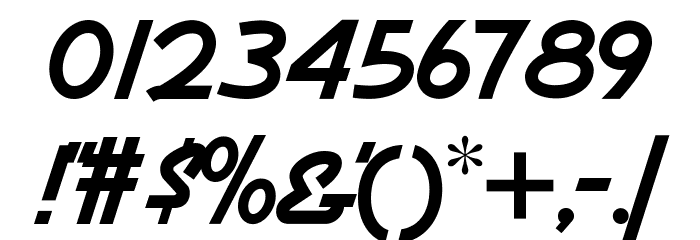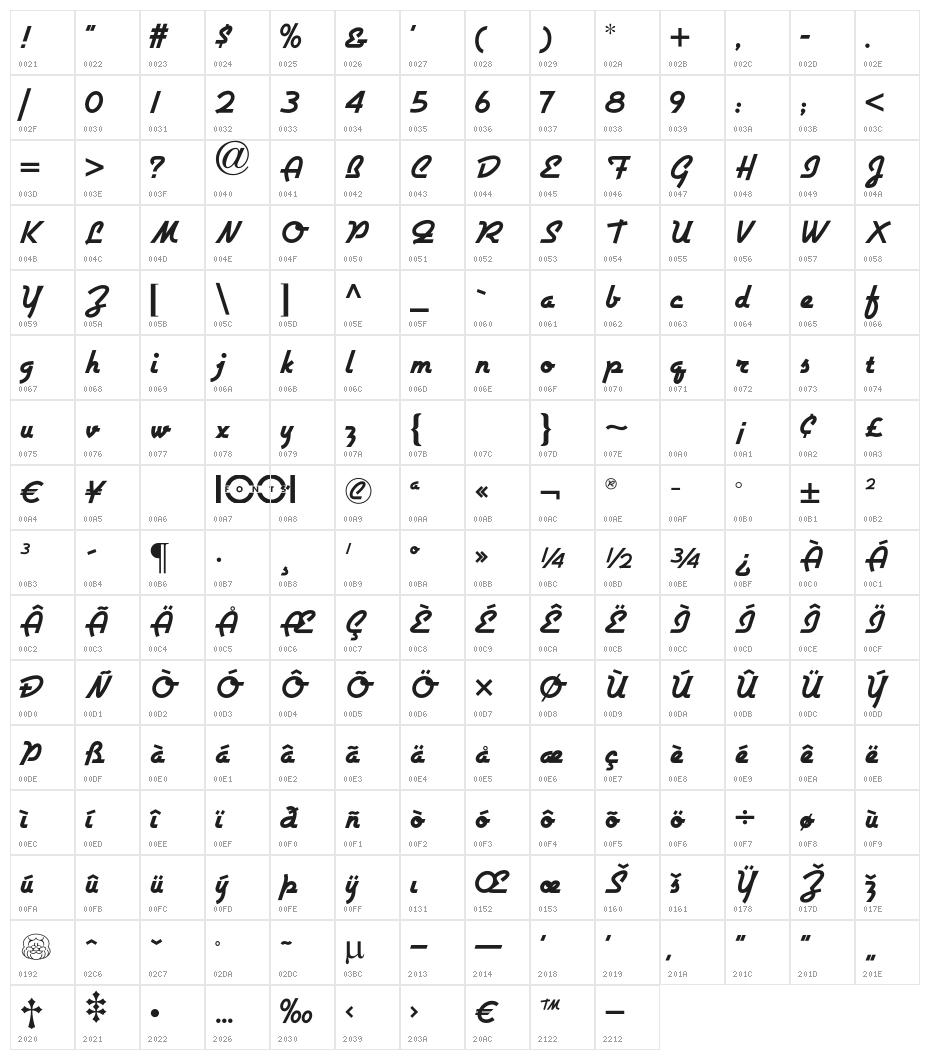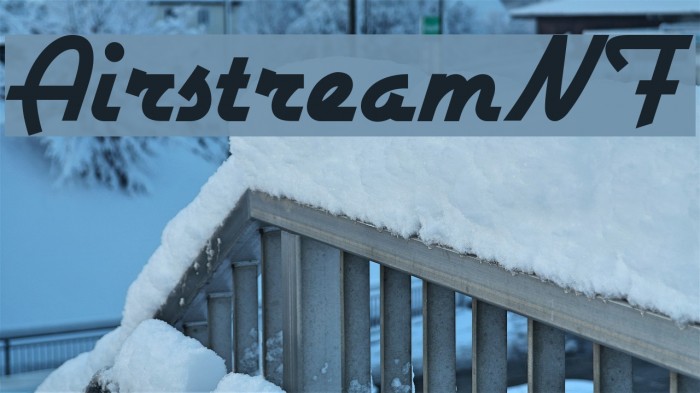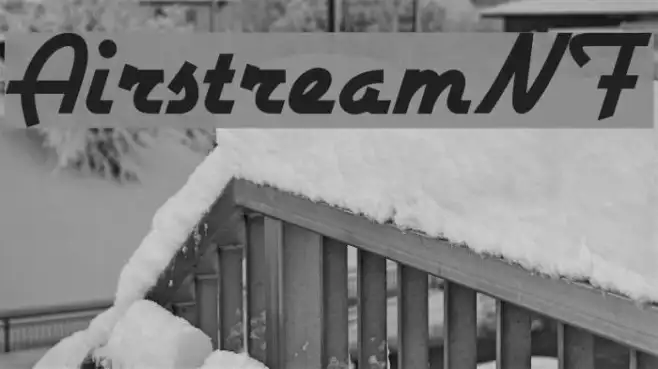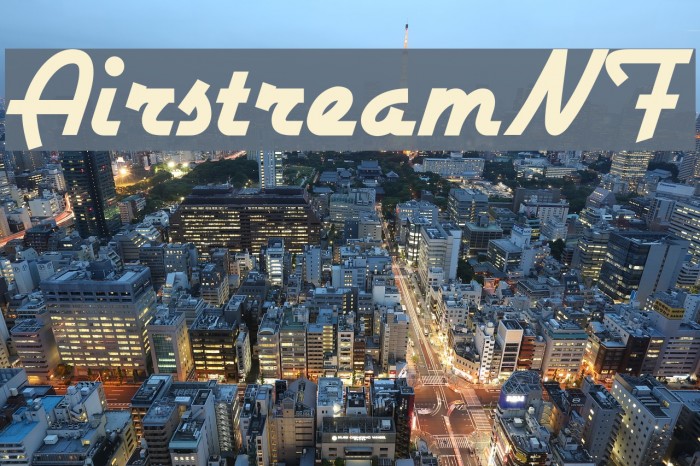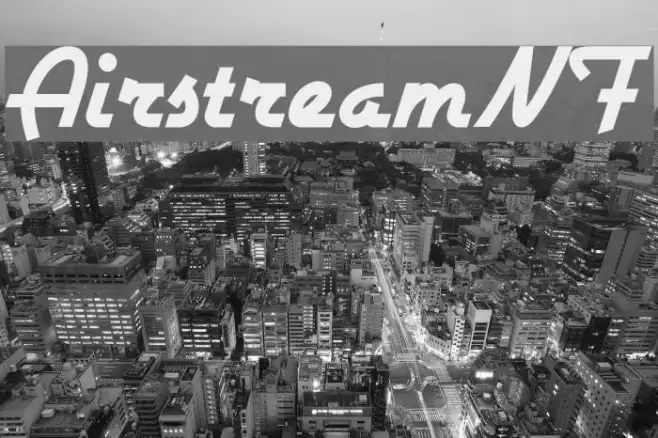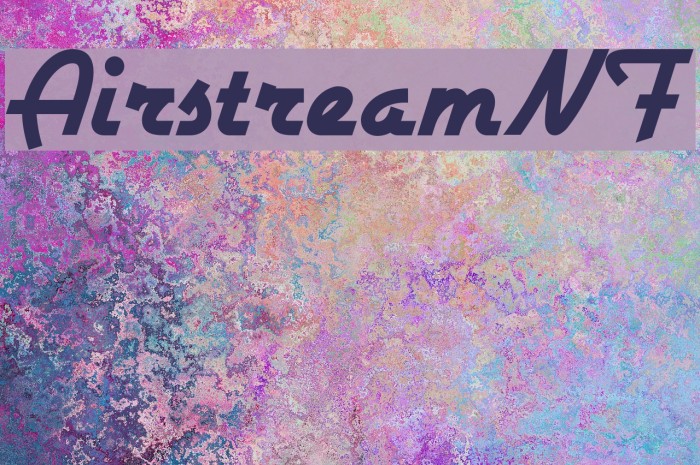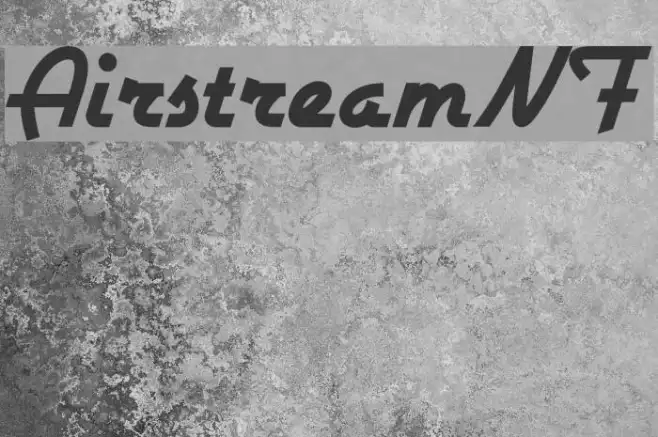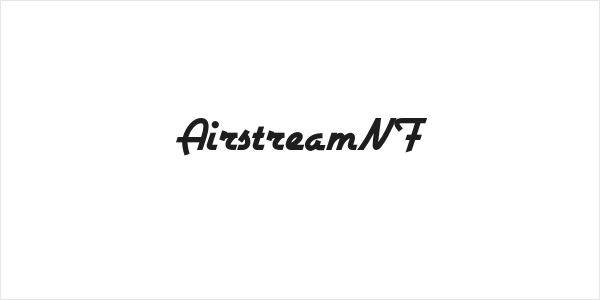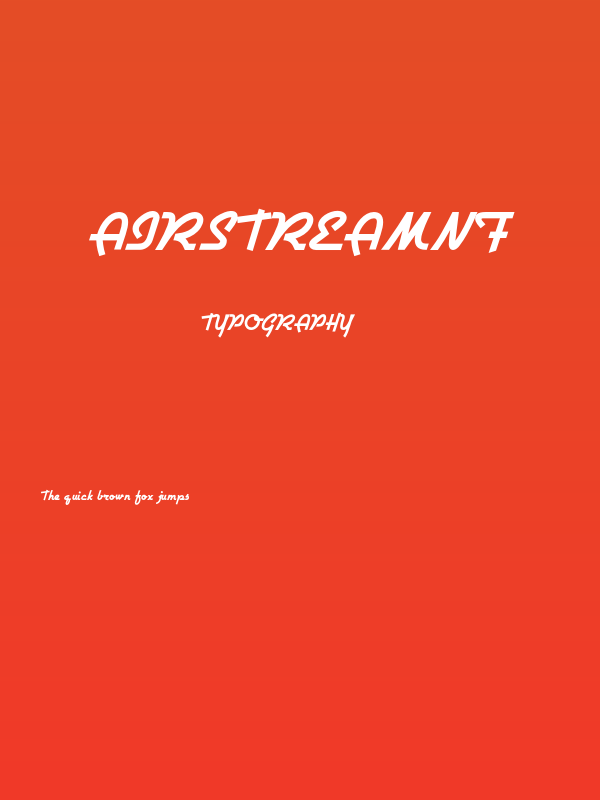
AirstreamNF Font
AirstreamNF Description
This font features a bold, cursive style with a dynamic and flowing appearance. The characters have a slight slant, adding a sense of motion and elegance. The uppercase letters are bold and prominent, while the lowercase letters maintain a consistent flow, making them highly legible. The numerals and special characters are designed to complement the overall style, ensuring a cohesive look. The strokes are thick and consistent, providing a strong visual impact. This font is suitable for projects that require a touch of sophistication and flair.